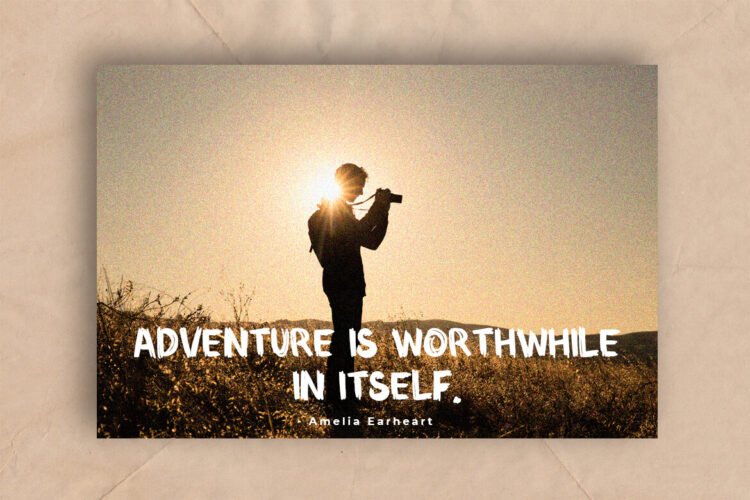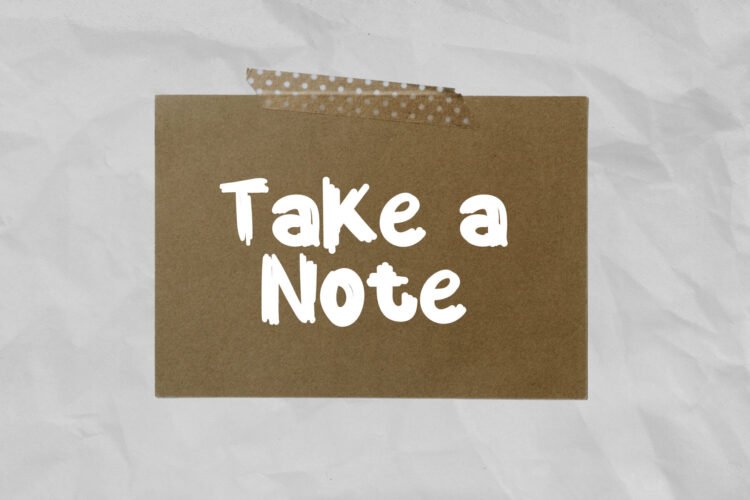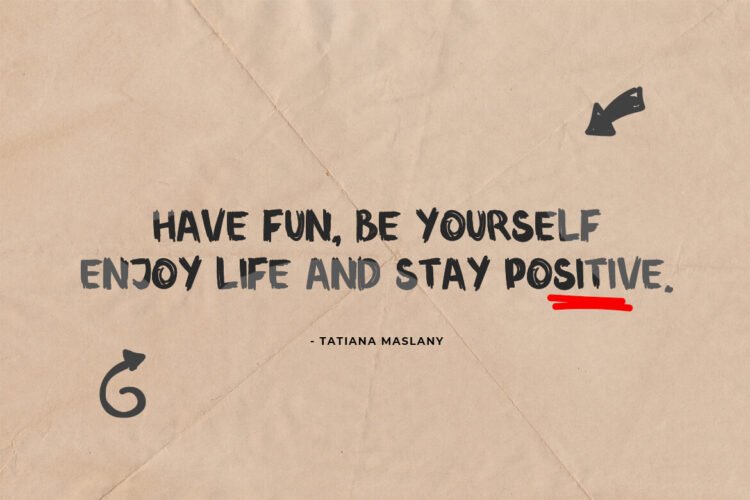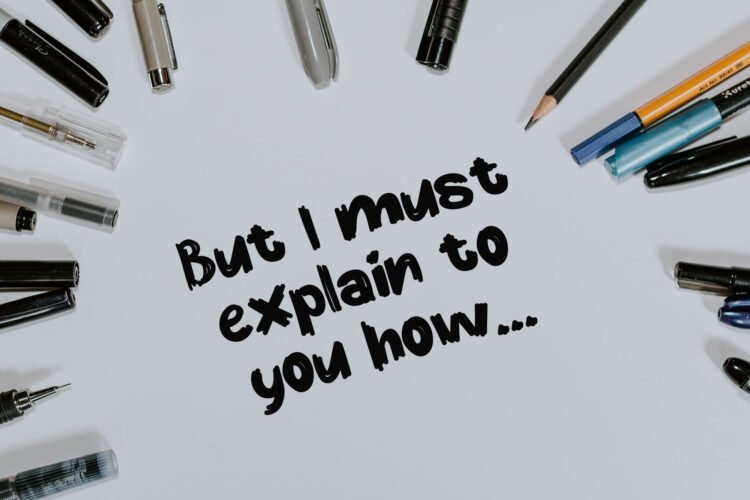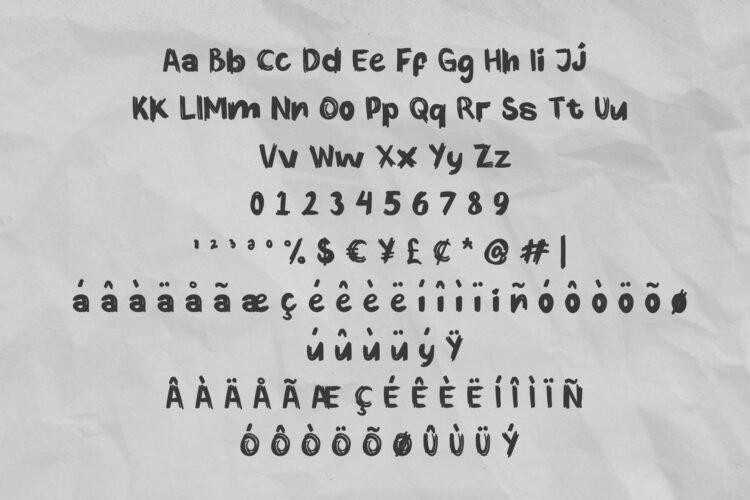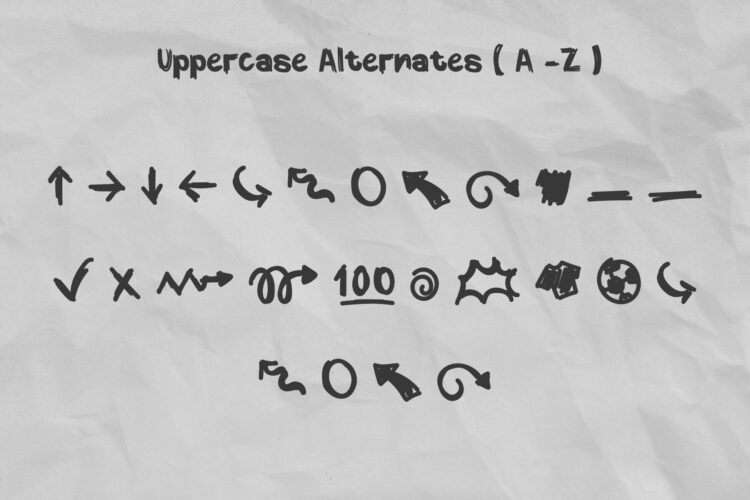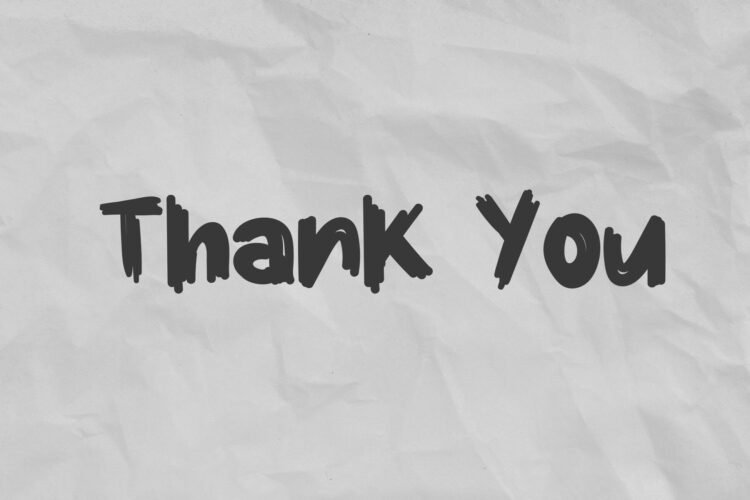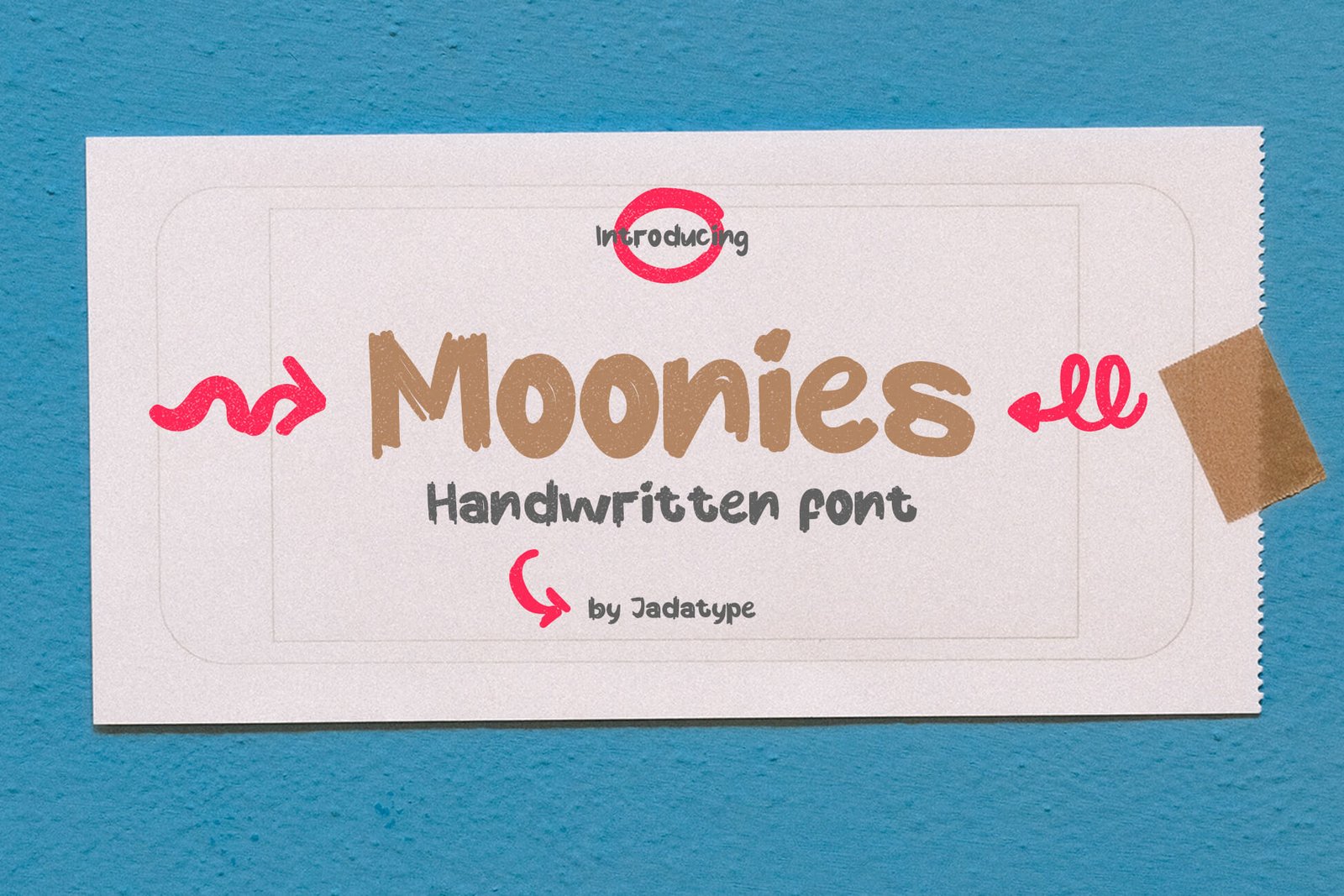
Moonies is a Display font that comes with a handwriting style. suitable for kids theme, tshirt, webstie, social media, book, movie and so on. contains standard English letters, numbers, punctuation, alternates, and several accents that support multilingualism.